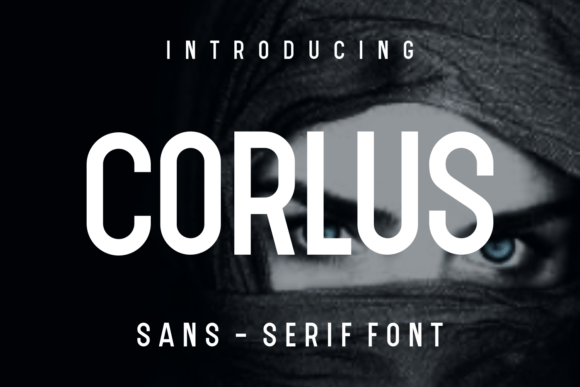
Behold! Step into the realm of impeccable design with Corlus Font, an ode to timeless elegance and modern appeal. This exceptional sans serif font, crafted meticulously by lelevien, is not merely a collection of letters but a gateway to a world of boundless creative possibilities.
Unlock your inner artist as you explore the versatile nature of Corlus. With its clean lines, crisp strokes, and inherent legibility, this font adapts seamlessly to a myriad of design endeavors. Whether you're crafting captivating business cards that command attention, designing sleek logos that exude professionalism, or weaving captivating headlines that demand a second glance, Corlus rises to the occasion every time.
As a classic sans serif font, Corlus transcends the boundaries of time and trend. It's a timeless treasure that effortlessly elevates any project it graces. Its timeless aesthetic ensures that your creations remain relevant and visually stunning for years to come, standing the test of time with unwavering grace.
Envision your business cards transformed into miniature masterpieces, leaving a lasting impression on potential clients and colleagues alike. Picture your logos radiating an aura of sophistication and authority, instantly conveying your brand's unwavering commitment to excellence. Witness the birth of headlines that captivate audiences, enticing them to delve deeper into your written masterpieces.
Let Corlus be the cornerstone of your design journey, a font that empowers you to convey your message with clarity, elegance, and an unwavering sense of style. Embrace Corlus today and unlock the door to a world of design possibilities that will leave an indelible mark on your audience's hearts and minds.